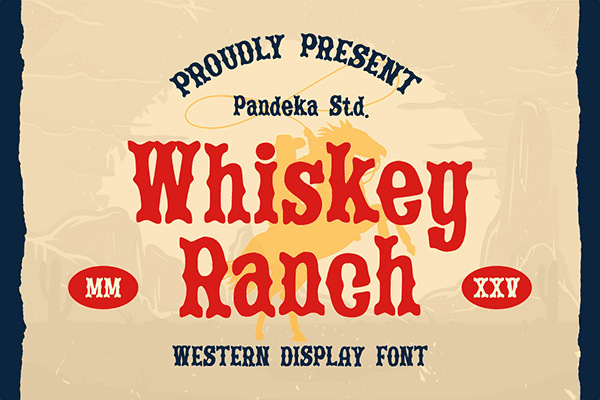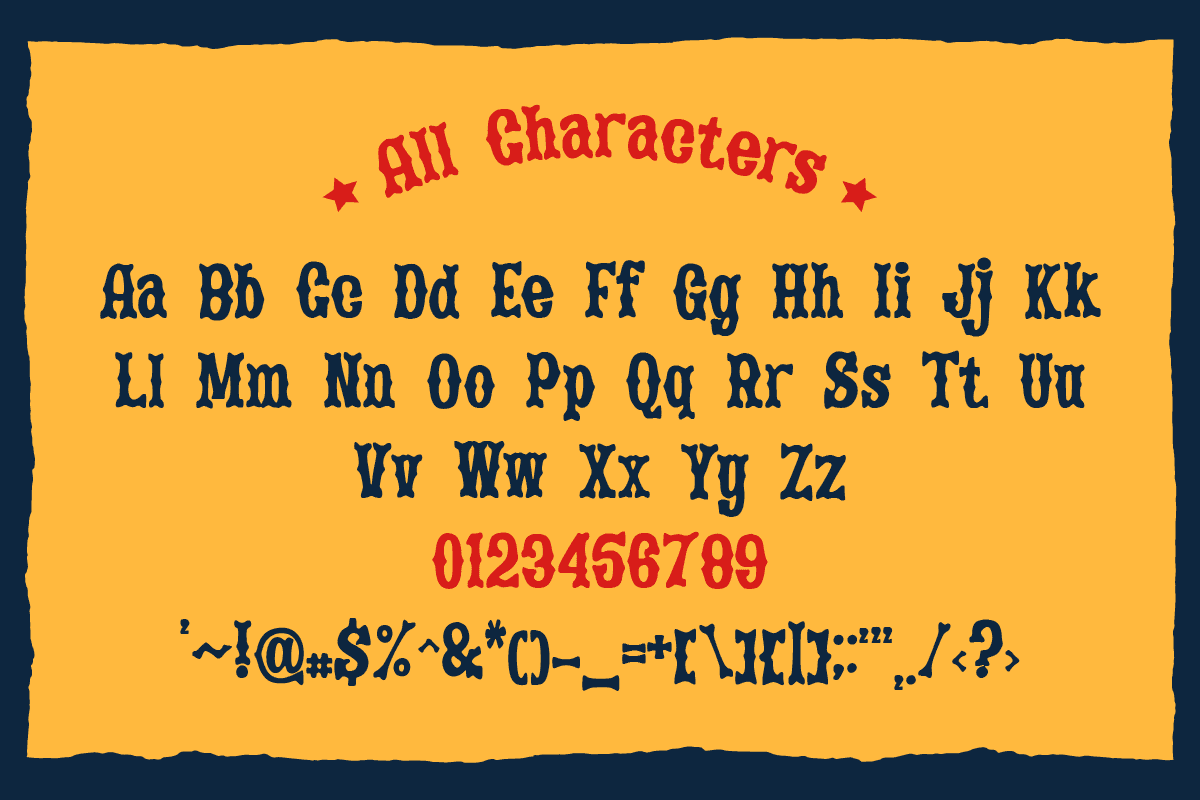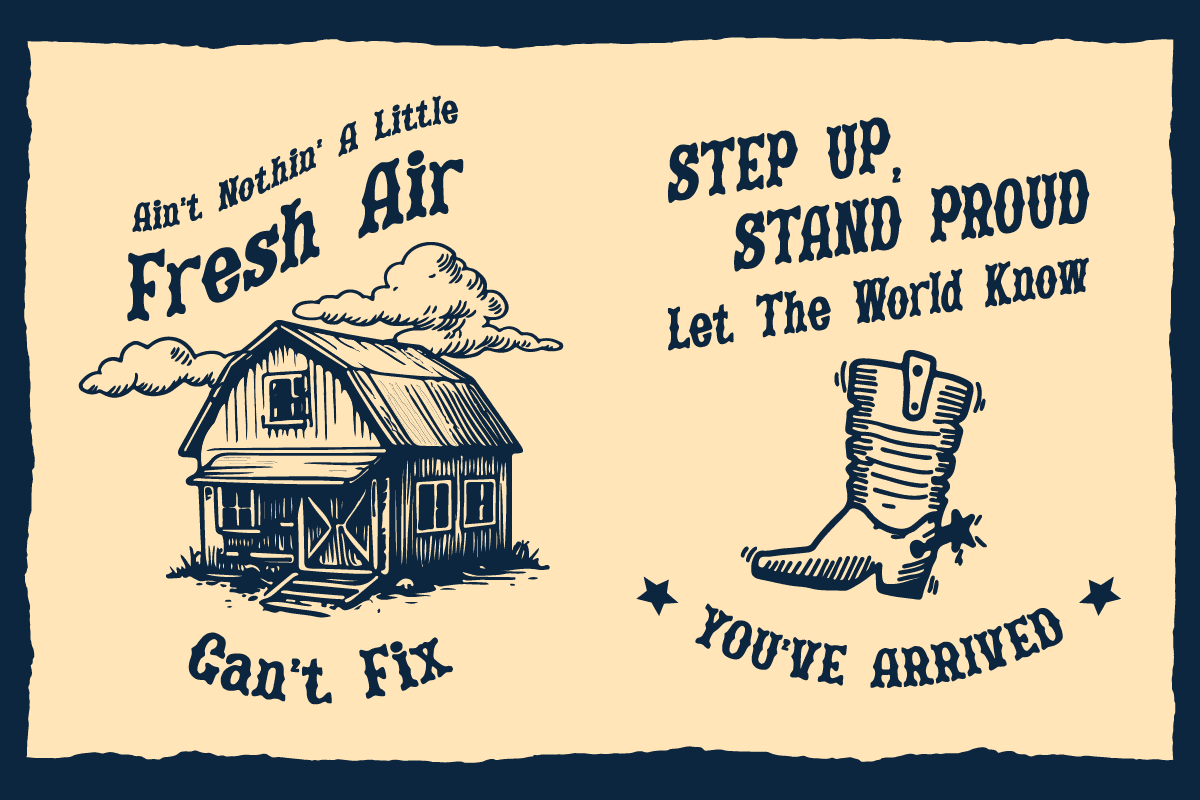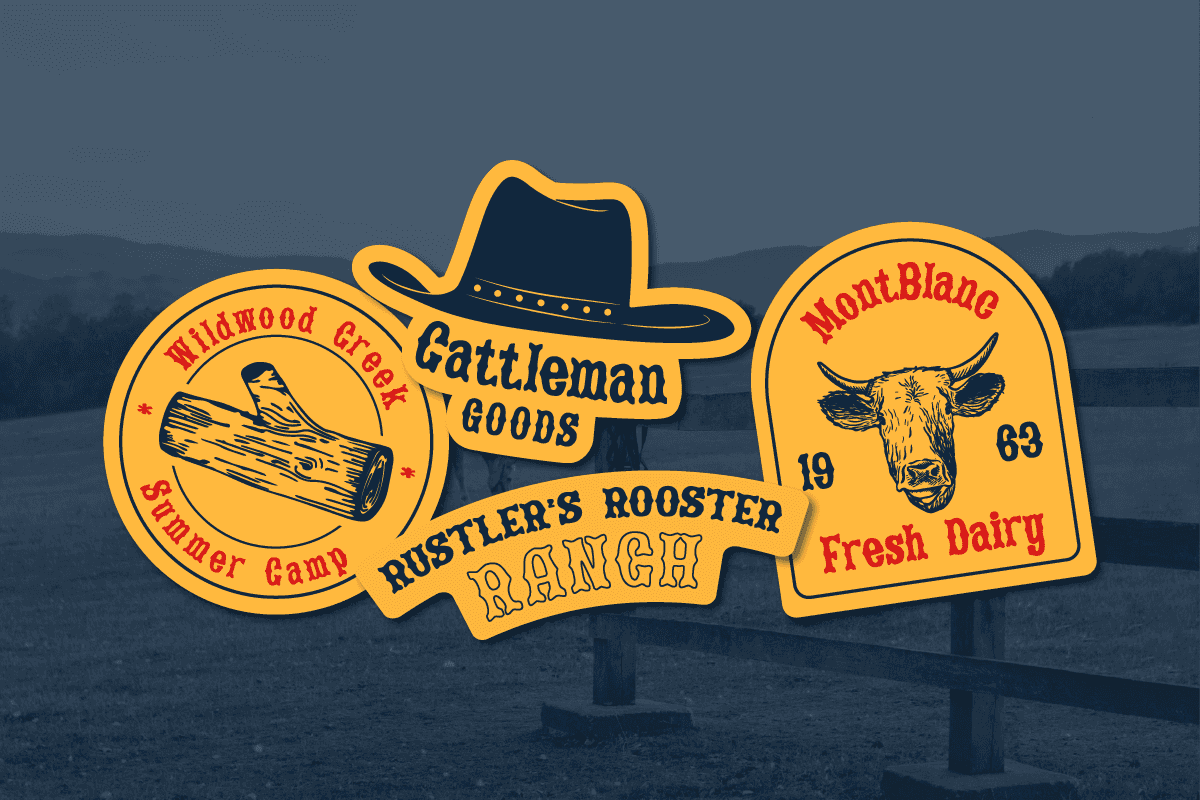
Whiskey Ranch – Display Font
Whiskey Ranch – Display Font is a bold serif font with a rustic, vintage aesthetic, perfect for western-style branding, cowboy-themed designs, signage, packaging, and classic typography. Its timeless, rugged charm makes it ideal for bold lettering, rustic posters, and unique display projects.